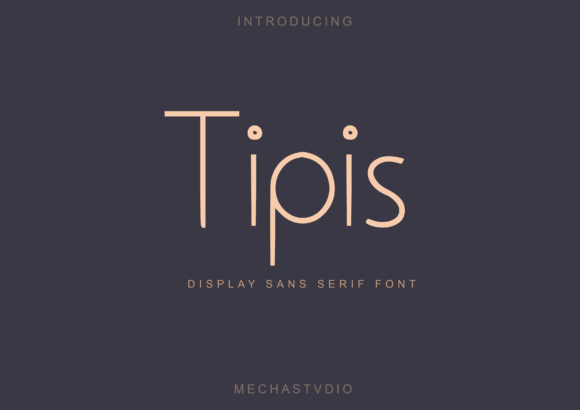
Indulge your creative visions with Tipis Font, a captivating display sans serif that embodies sophistication and charm. Its slender strokes and understated elegance evoke a sense of modernity, while its inherent versatility empowers you to create designs that leave an unforgettable mark.
Born from the artistry of MechaStudio, Tipis Font is meticulously crafted to elevate your branding endeavors. Its clean lines and minimalist aesthetic seamlessly complement any corporate identity, adding a touch of refinement to your logos, brochures, and marketing materials.
Unleash your individuality with Tipis Font, a font family that speaks volumes through its simplicity. Its delicate curves and open counters create a welcoming ambiance, inviting readers to immerse themselves in your words. Perfect for crafting engaging website content, captivating social media posts, and alluring invitations, Tipis Font ensures your message captivates and resonates with your audience.
But Tipis Font's allure extends far beyond the realm of branding and typography. Its understated beauty shines through in a myriad of creative projects, from eye-catching posters and vibrant packaging designs to charming social media graphics. Whether you're a seasoned designer or embarking on your creative journey, Tipis Font empowers you to express your ideas with confidence and flair.
Embrace the power of versatility with Tipis Font, a font that effortlessly adapts to your every design need. Its inherent adaptability allows you to craft harmonious pairings with other fonts, creating visually stunning designs that command attention. Experiment with different weights and sizes to achieve maximum impact, or let Tipis Font's understated elegance take center stage.
Step into a world of creative possibilities with Tipis Font. Its timeless appeal and endless versatility make it an indispensable tool for any designer seeking to create designs that transcend the ordinary. Experience the transformative power of Tipis Font today and unleash your creativity like never before.